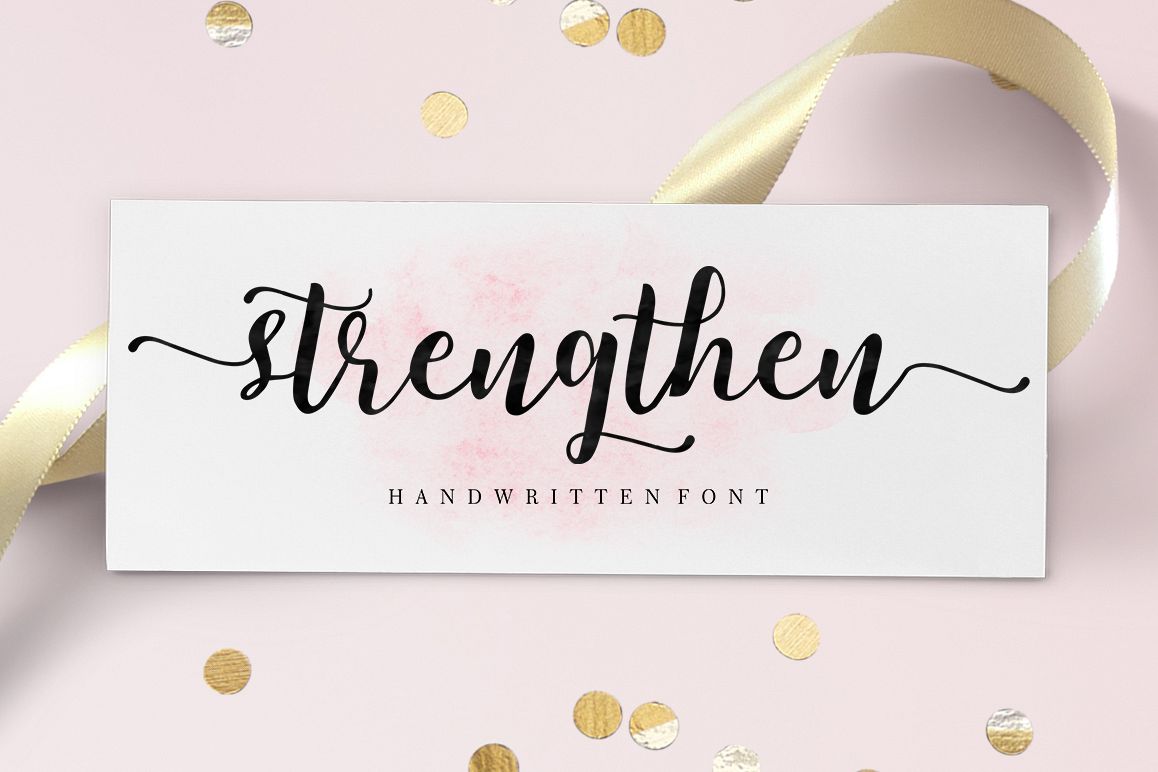
Strengthen Script
Strengthen Script is a calligraphic manuscript modern, dynamic and pretty with swashes. Can be used for many purposes. such as title, signature, logo, wedding invitations, letterhead, signage, labels, newsletters, posters, badges, etc.
Strengthen Script features Open type, including the initial and terminal letters, ligatures and International support for most Western languages ??included.